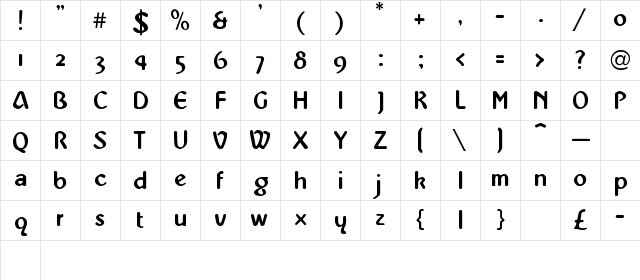
Arriaga Regular Font Preview
Arriaga Regular
Design Context for Arriaga Typeface
Arriaga offers clean, dependable letterforms without strong stylistic allegiance, making it a practical choice for designers who need flexibility.